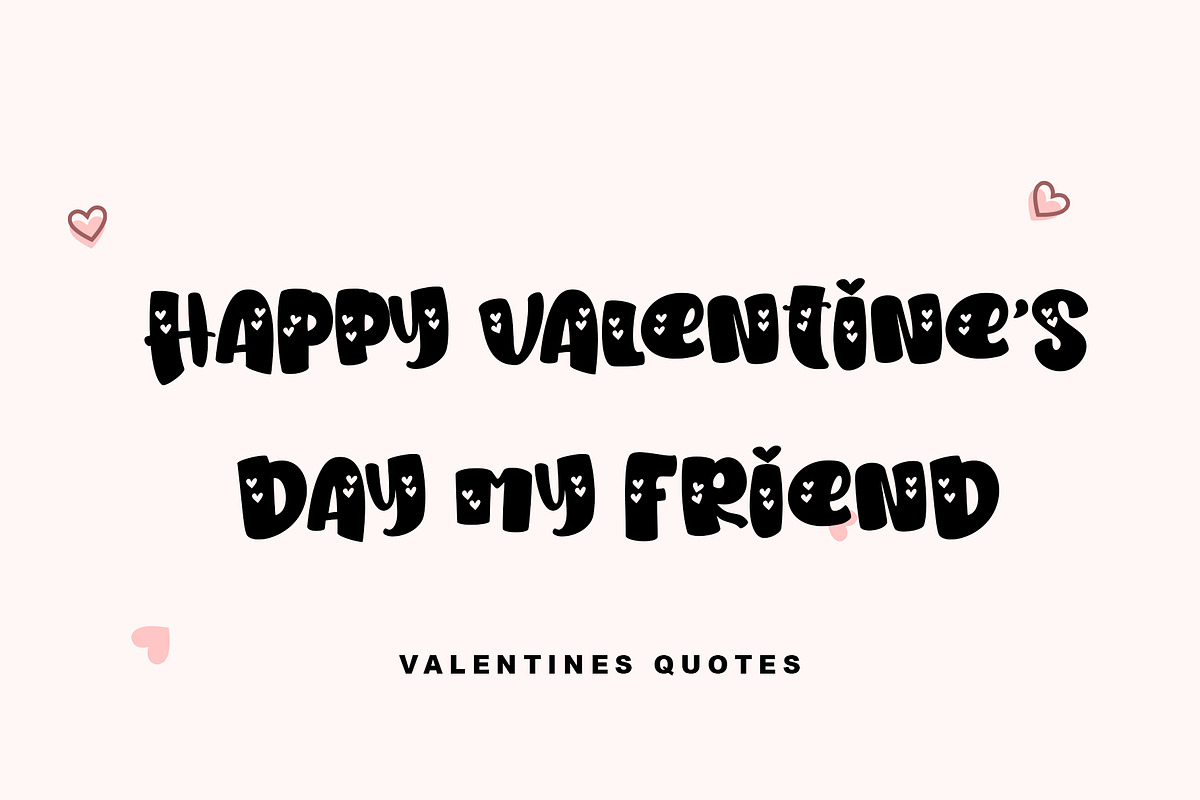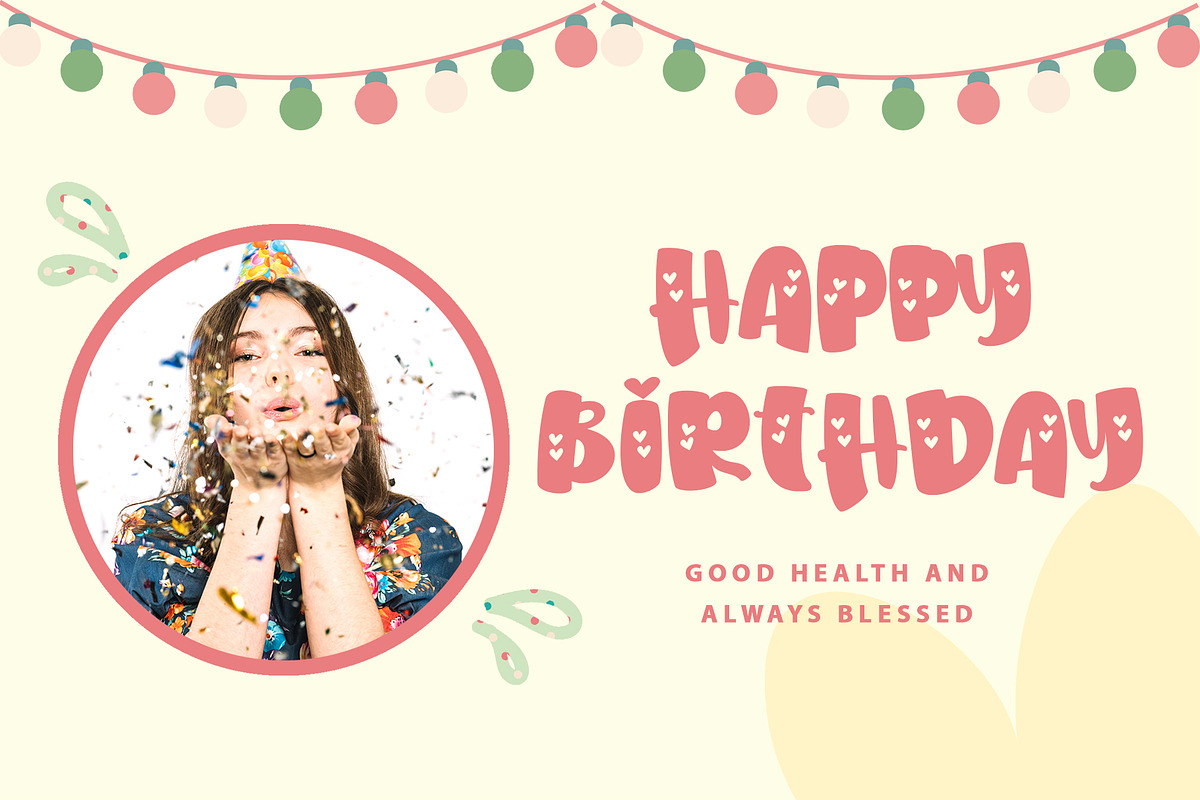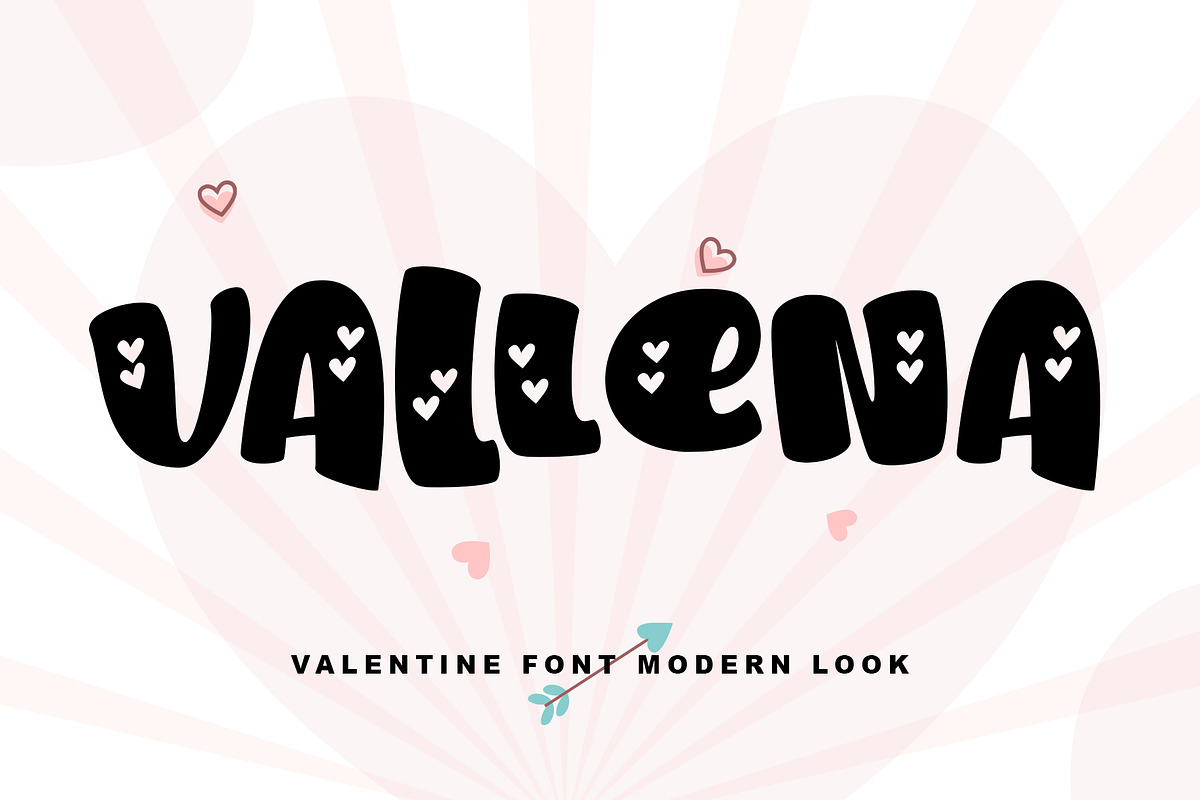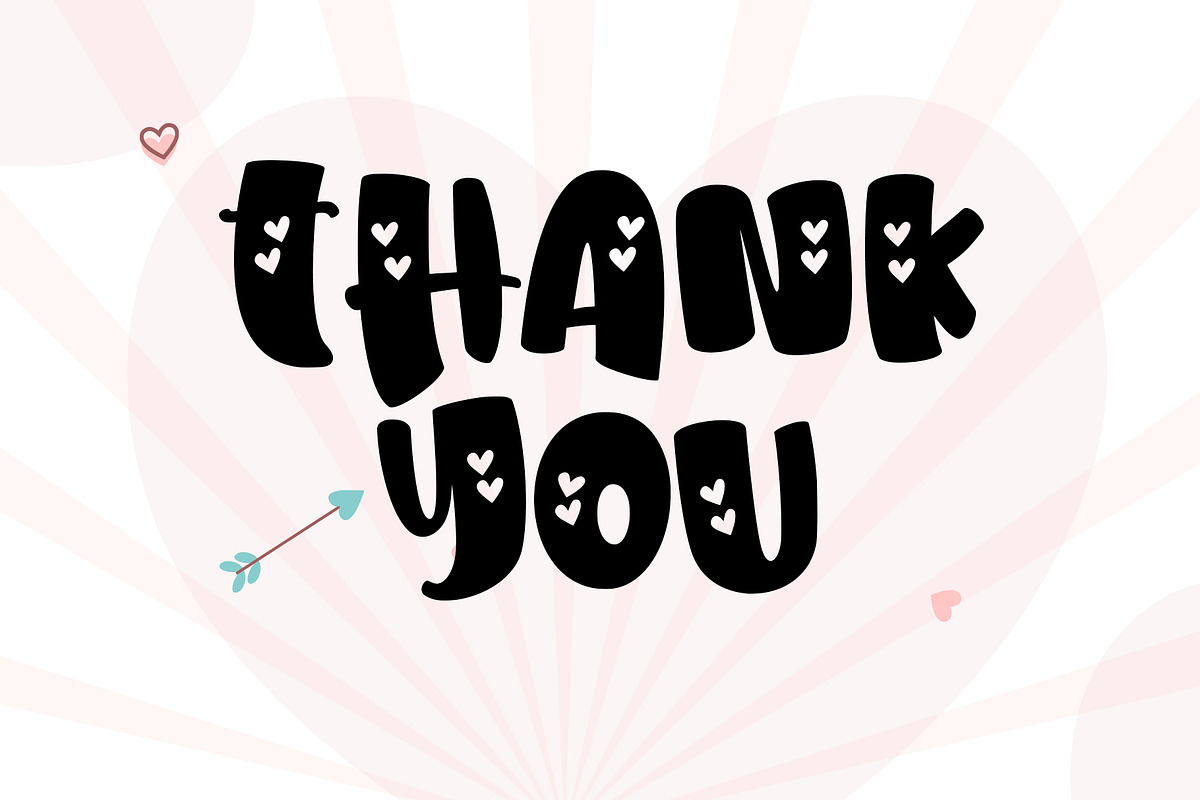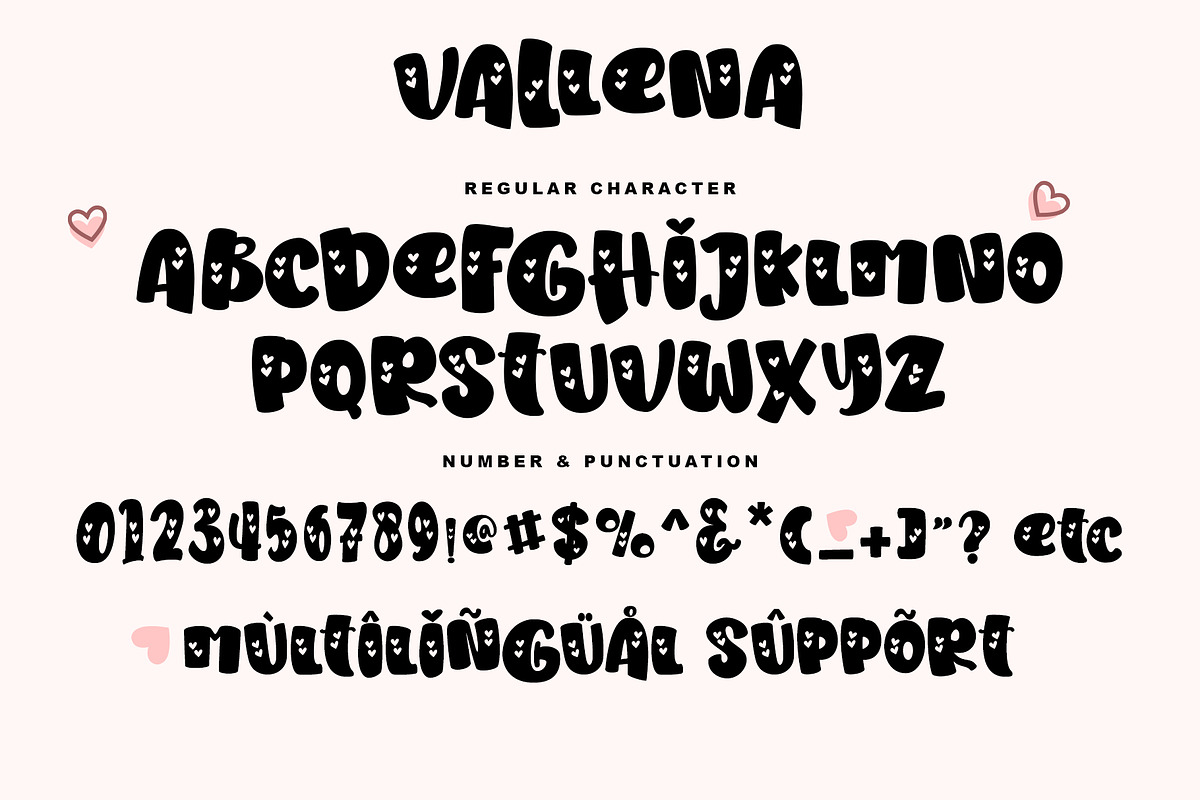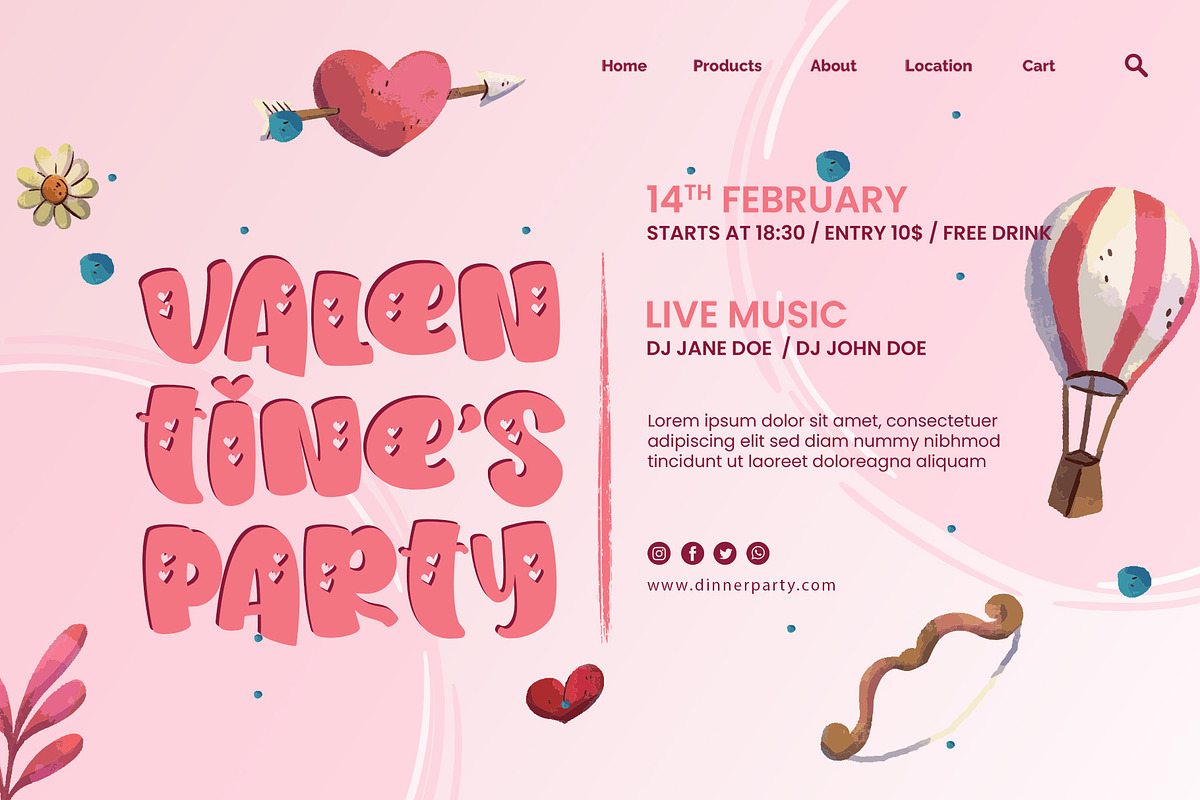
Vallena
Vallena is a fresh & modern playful font. It has a bold cute style and will add an upscale to all your designs. This Font is perfect for many different projects such as logos & branding, invitations, birthday party, valentine, fashion, stationery, wedding designs, social media posts, advertisements, product packaging, product designs, photography, watermarks, special events, and much more!
- Support multilingual; ä ö ü Ä Ö Ü ß ¿ ¡
- lowercase and uppercase letters